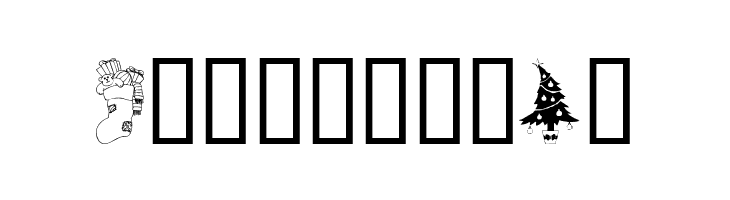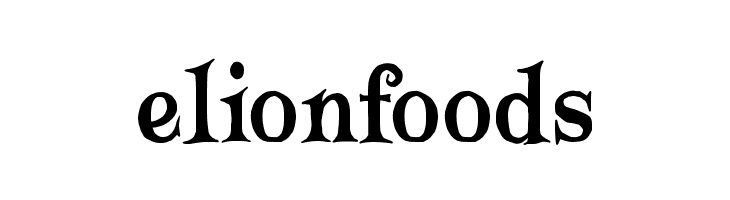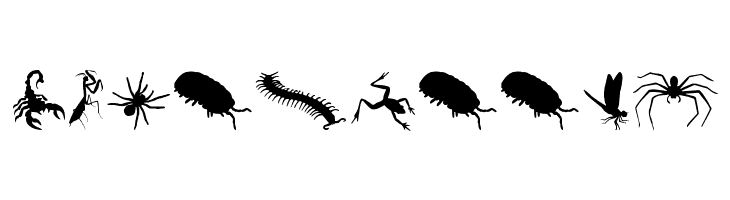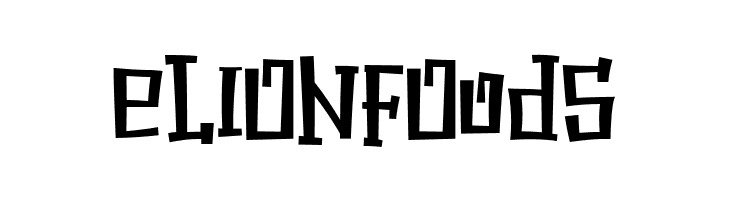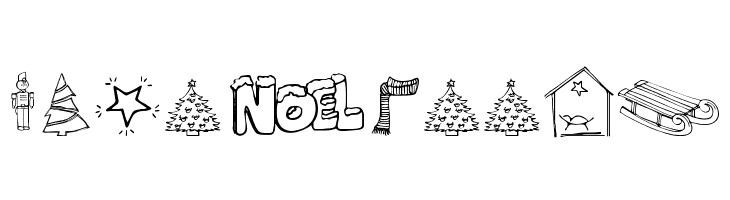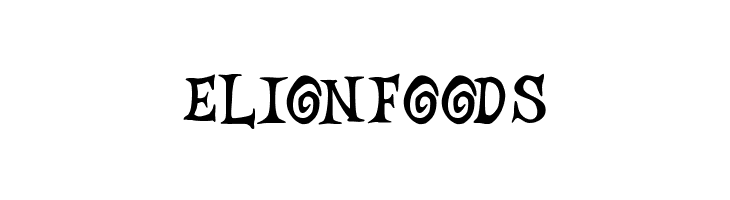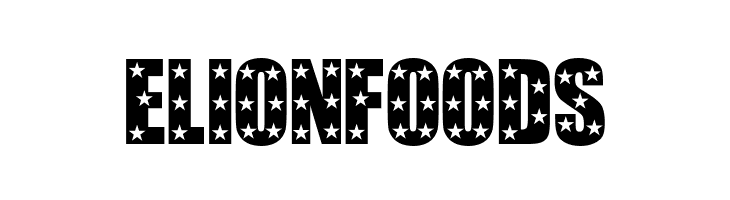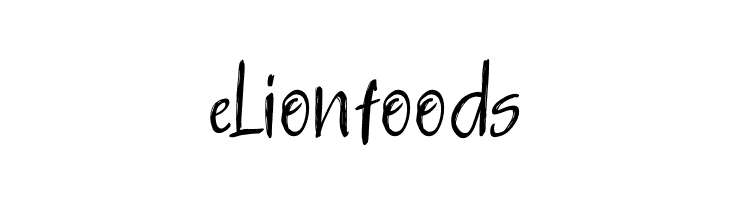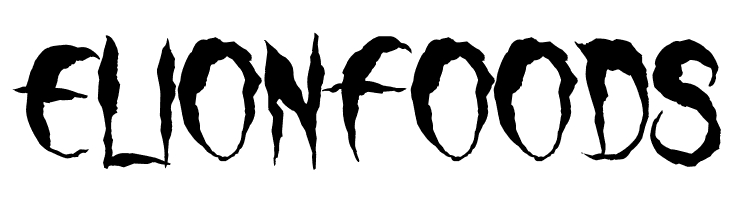
Christmas-themed dingbat font with festive illustrations.
A spooky, playful font with jagged edges and whimsical serifs, perfect for Halloween themes.
A pictorial font featuring silhouettes of creepy-crawly creatures and small animals.
A playful, spooky font with hand-drawn, uneven letters and quirky angles.
A whimsical collection of hand-drawn Christmas-themed doodles.
A spooky, playful font with jagged, irregular characters perfect for Halloween themes.
A bold, star-filled decorative font ideal for eye-catching displays.
A playful, doodle-style font with birthday-themed illustrations.
A playful, spooky handwritten font ideal for Halloween themes.
A bold, jagged font with sharp edges and a wild, energetic style.